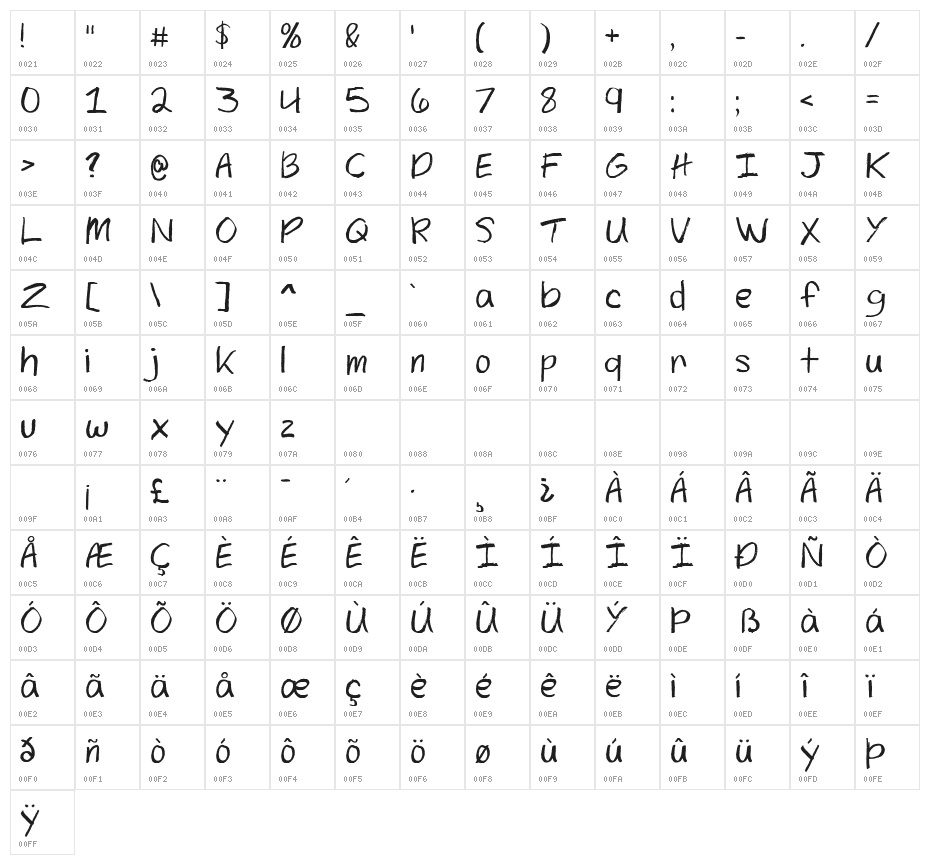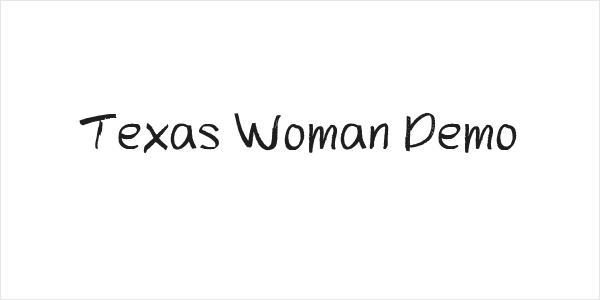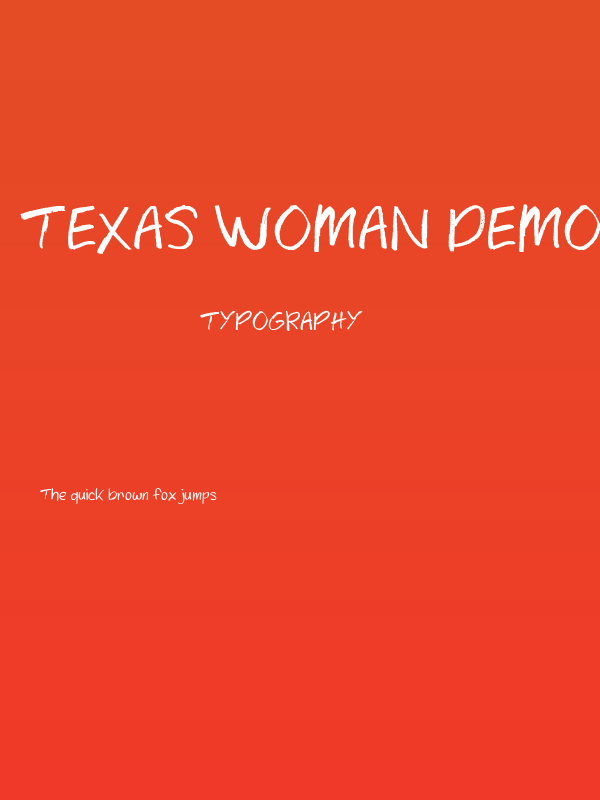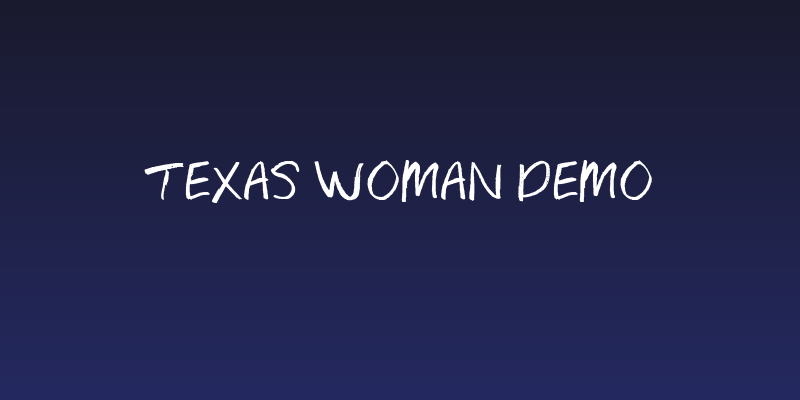
Texas Woman Demo Font
Texas Woman Demo Description
This font exudes a casual, handwritten style with a playful and approachable appearance. The characters are slightly irregular, adding a personal touch that mimics natural handwriting. The strokes are consistent in width, providing a uniform look while maintaining a sense of spontaneity. The uppercase letters are bold and slightly taller than the lowercase, which are rounded and soft. Numbers and special characters follow the same handwritten theme, ensuring cohesiveness across all elements. This font is perfect for projects that require a friendly and informal tone.
| Use Case | Headlines, Logos, Informal text |
| Proposed Projects | Ideal for greeting cards, personal blogs, children's books, and informal branding. |